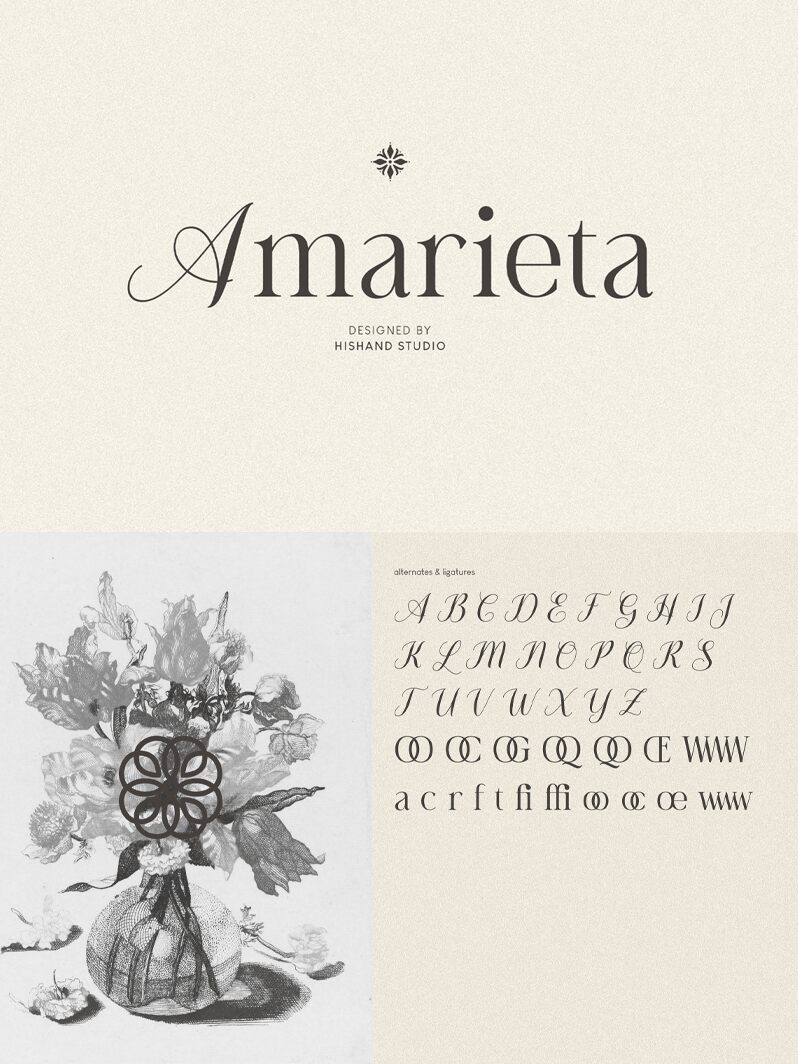
Amarieta font by Hishand Studio is a free serif typeface that exudes elegance and sophistication. With its modern yet classic feel, it incorporates refined and decorative elements that lend a timeless charm to any design. Its artistic and versatile nature makes it a perfect choice for various creative projects.
This font suits a wide range of applications, including branding, editorial design, invitations, packaging, book covers, posters, logos, and web design. It’s an ideal choice for anyone looking to infuse a touch of class and elegance into their visual projects.